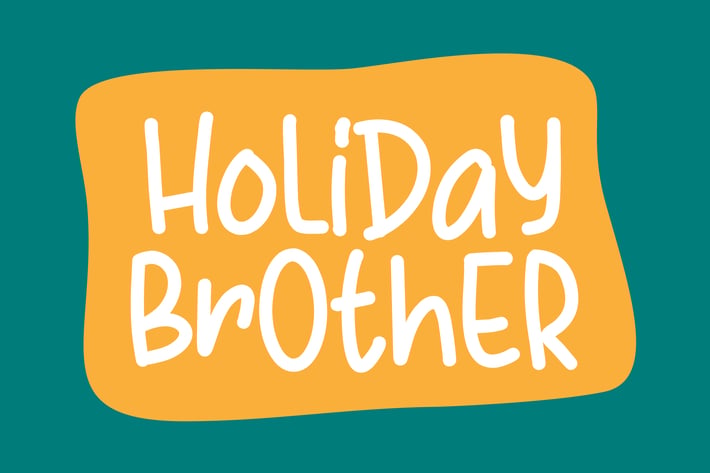
Holiday Brother - Handwritten Display Font
Say hello to Holiday Brother font. Made with love and joy. Handwritten look, so it will make your design more beautiful, cute, fun, and colorful.